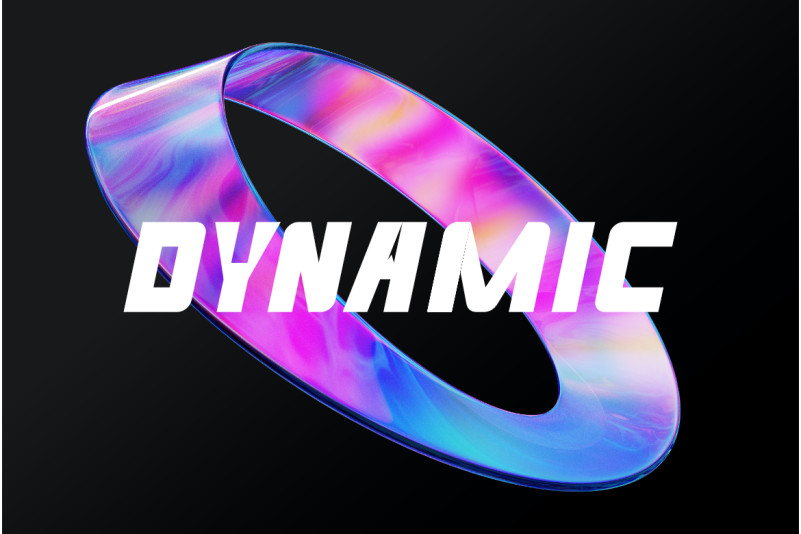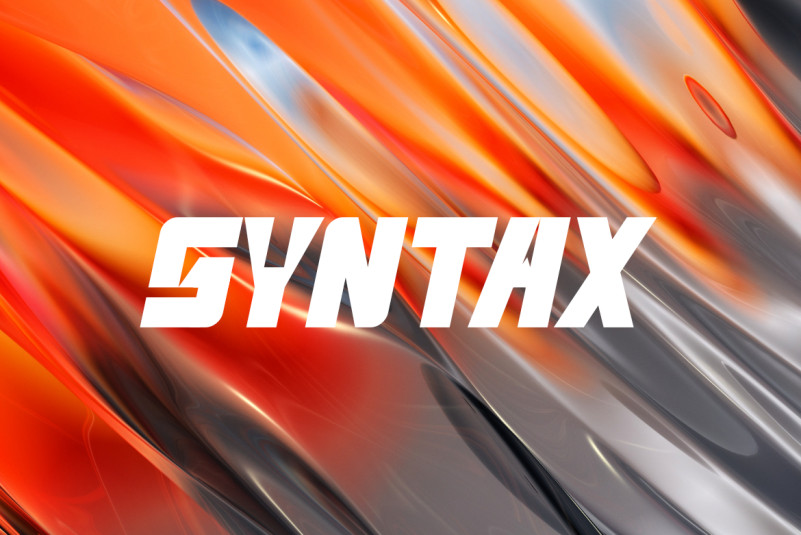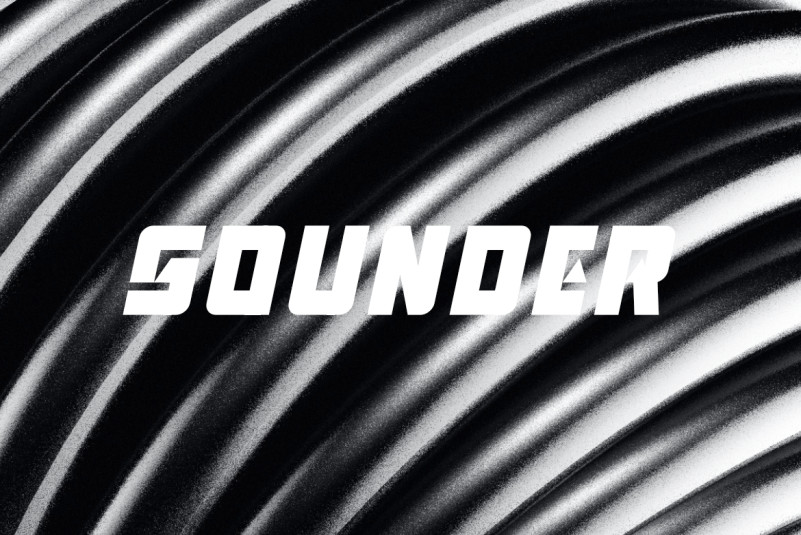
Venfro Pro Font
Venfro is a bold and thick lettered display font. It reads as strong, confident, and dynamic and can add tons of assertive character to your designs.
is a bold font with dynamic including abstract form.